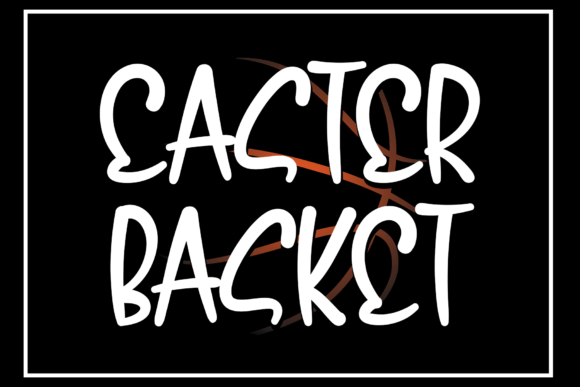
Meet Easter Basket Font, a whimsical and effortlessly charming handwritten font that will add a touch of warmth and playfulness to your creative projects. Its lively strokes and cheerful personality make it the perfect choice for crafting heartfelt notes, delightful designs, and captivating digital content.
With Easter Basket Font, you'll embark on a creative journey filled with endless possibilities. Whether you're a seasoned designer, a budding artist, or simply someone who loves adding a personal touch to their projects, this font will become your trusted companion. Let your imagination soar as you create beautiful invitations adorned with intricate swirls of Easter Basket's characters, or design eye-catching social media graphics that resonate with your audience.
Step into a world of creativity where Easter Basket Font effortlessly elevates your designs. Its charming curves and playful spirit bring a sense of joy and whimsy to any project. Picture designing a personalized greeting card that captures the essence of celebration, using Easter Basket Font to craft heartfelt messages that touch the hearts of your loved ones. Or visualize creating a stunning poster for an upcoming event, where Easter Basket Font's playful charm enchants and attracts attendees.
Easter Basket Font is more than just a font; it's an artistic expression that brings life to your creations. Its versatility spans across a myriad of projects, from crafting heartwarming invitations to designing captivating social media posts. With its ability to transform ordinary words into extraordinary works of art, Easter Basket Font is the ultimate choice for those seeking a font that sparks creativity and ignites the imagination.